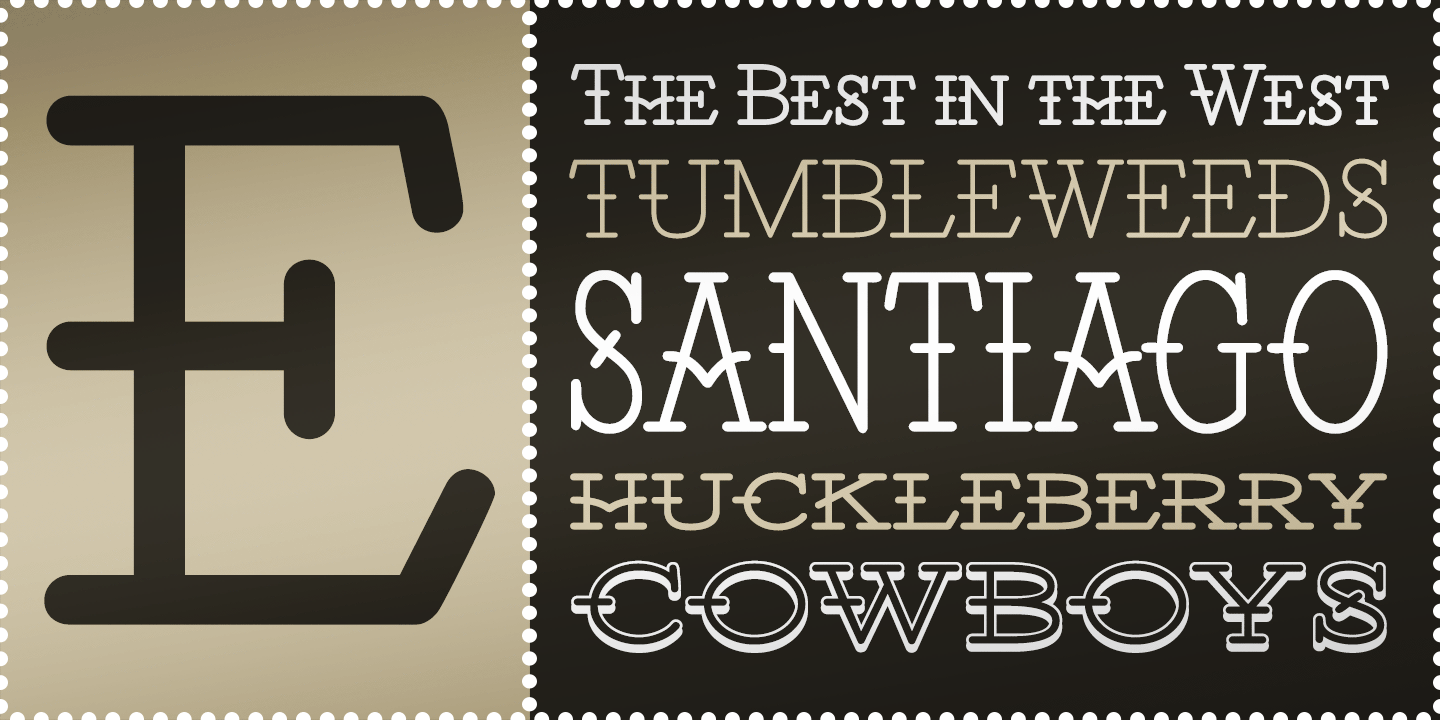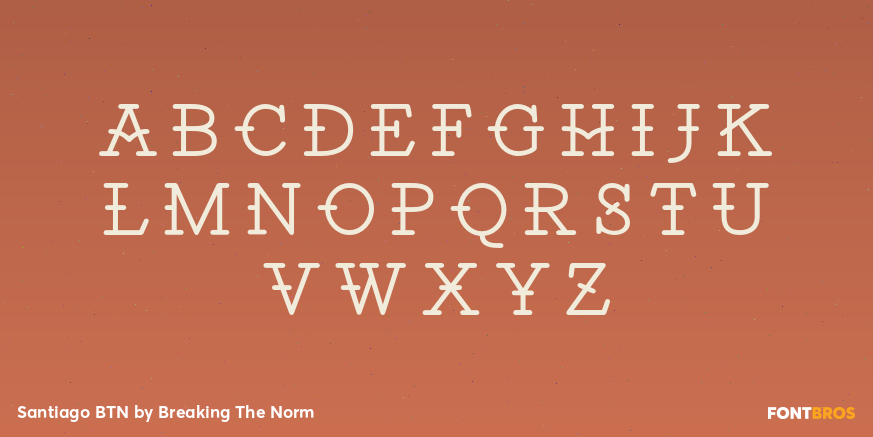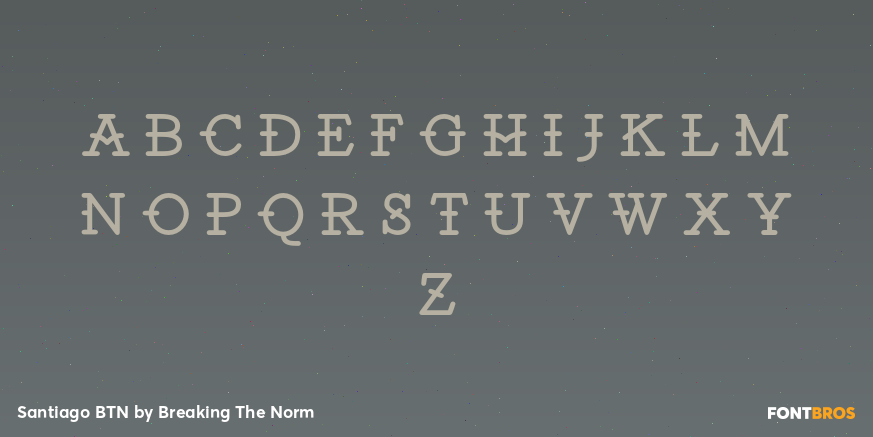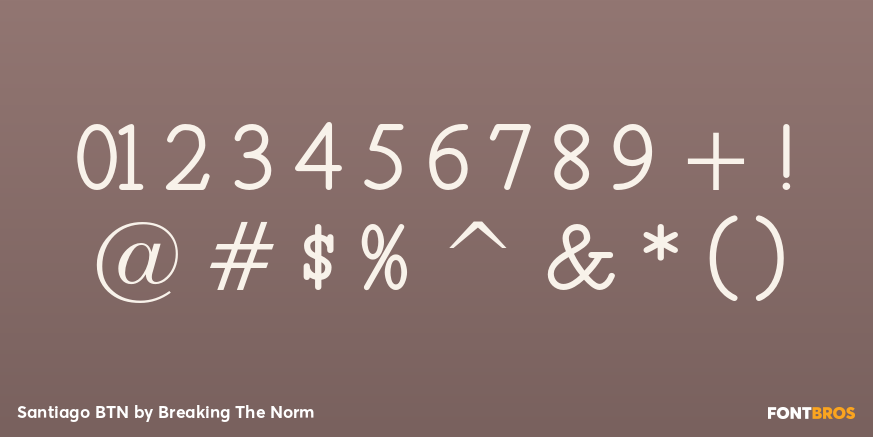
Santiago BTN
Font Family by Breaking The Norm
Santiago BTN is a western-inspired display family with a clean, friendly personality and a subtle comic-style simplicity. Drawing from wanted-poster lettering while keeping the forms approachable and readable, it offers a lighter, less rugged take on the western display genre. That balance makes it useful for posters, signage, branding, packaging, editorial design, themed graphics, and playful headline work that wants a touch of frontier character without feeling overly distressed. With Light, Regular, Oblique, Condensed Light, and Shadow styles, Santiago BTN provides flexible options for building vintage-flavored typography with clarity and charm.